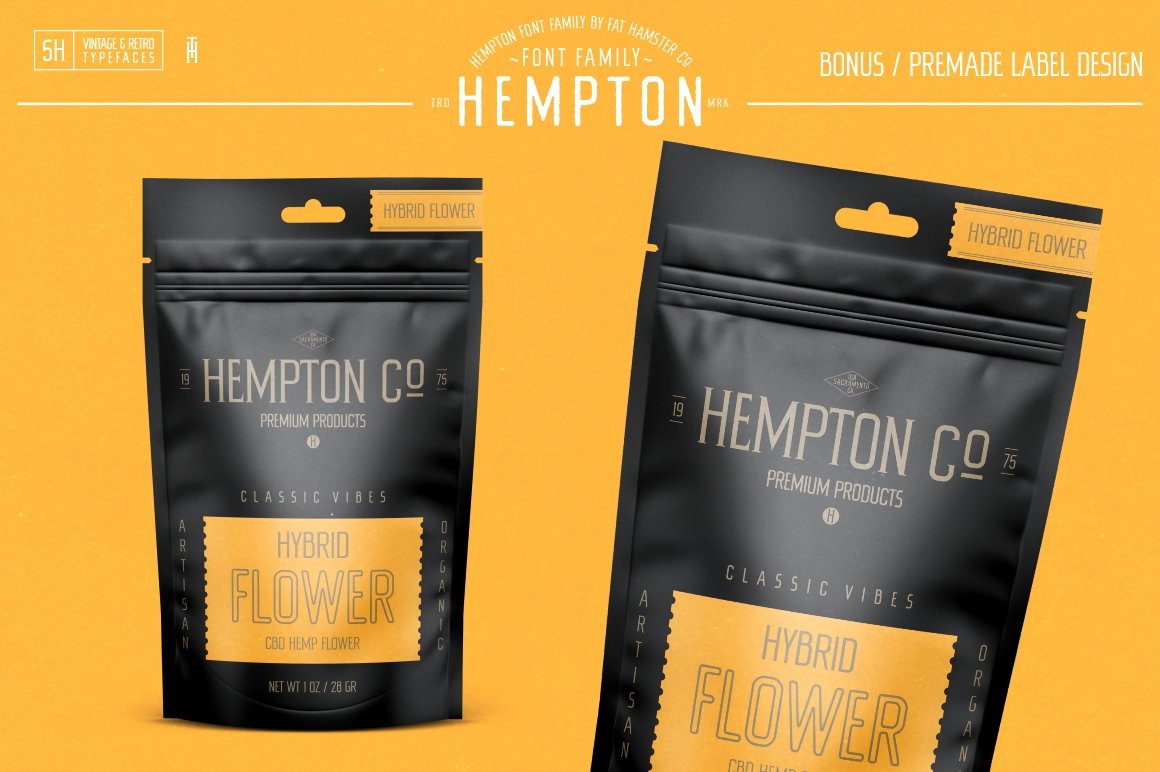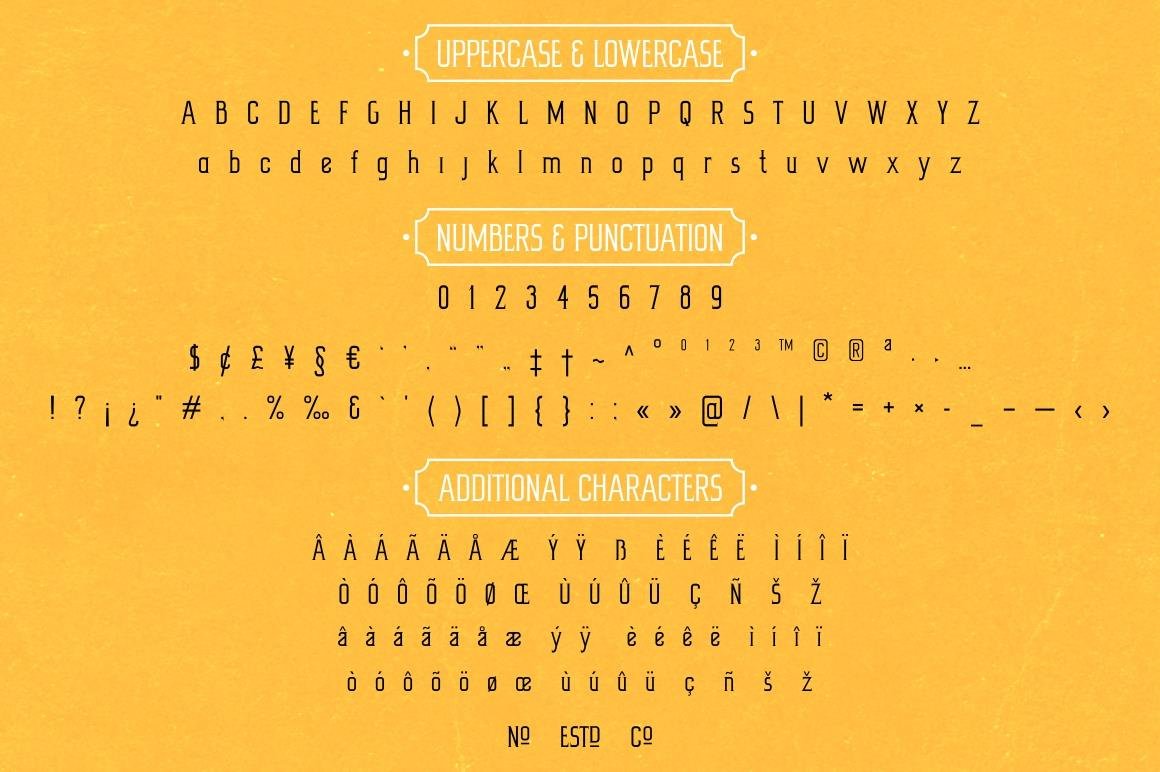
HEMPTON vintage typeface, 5 font styles: serif, sans serif, rough, outline, round
HEMPTON is a font family inspired by magazine designs and lettering of 19th and 20th century. HEMPTON typeface gives your designs projects an elegant and artistic look. HEMPTON font family is suitable for label and packaging design, branding and logo, books and magazines, short phrases or headlines. BONUS: 6 label design templates.